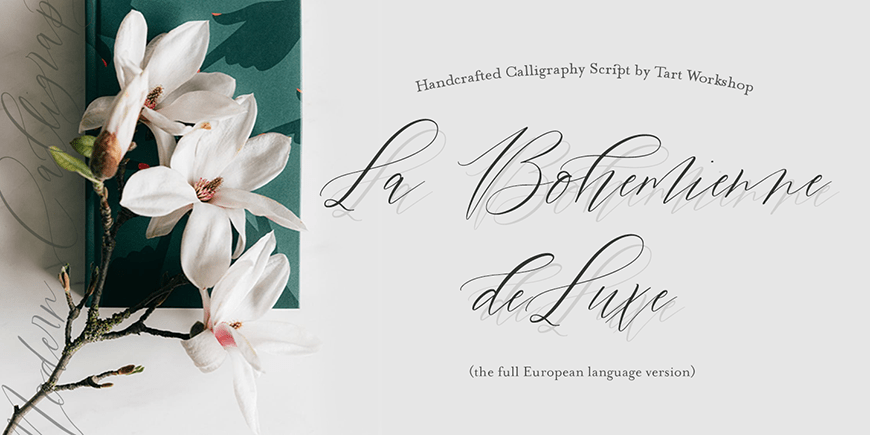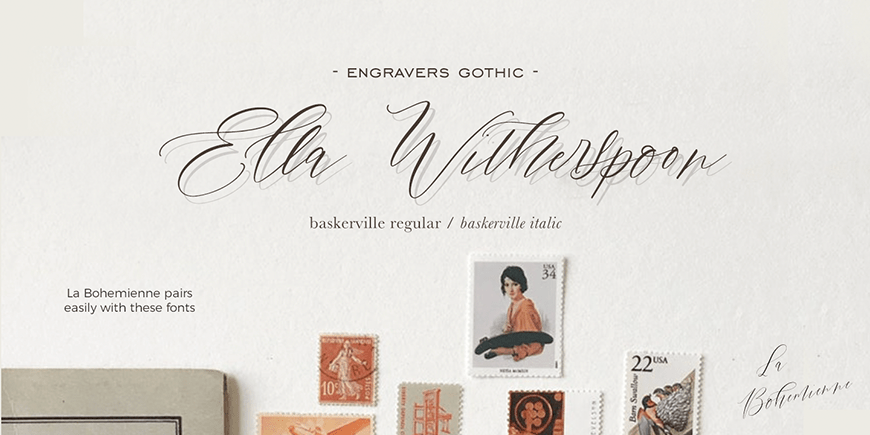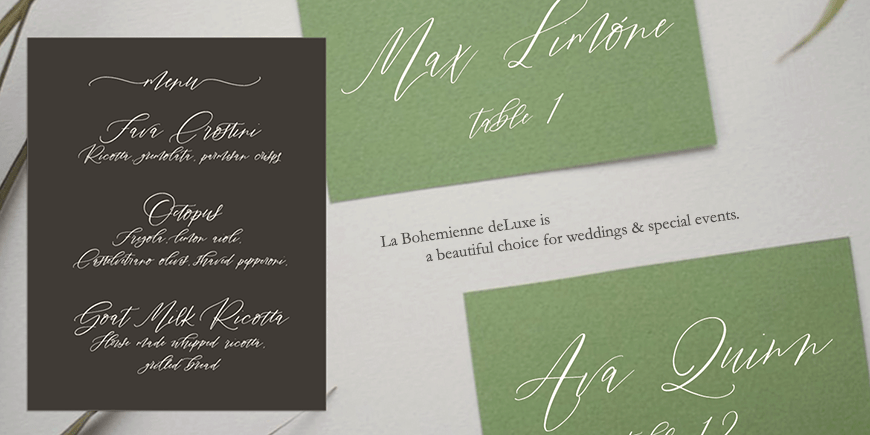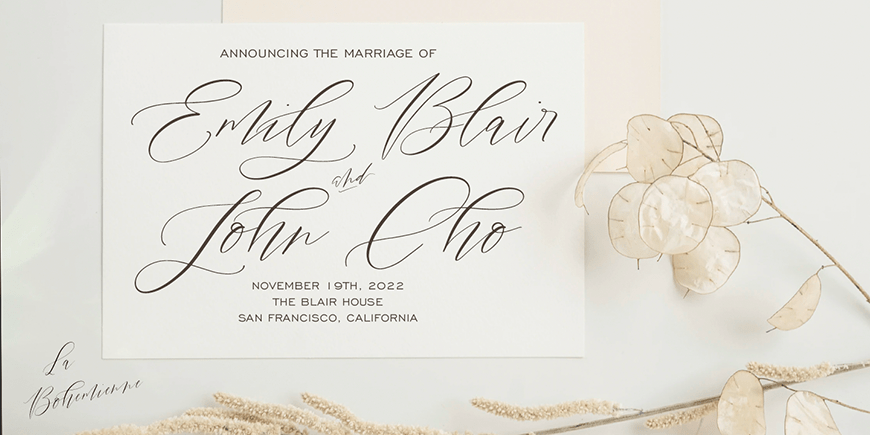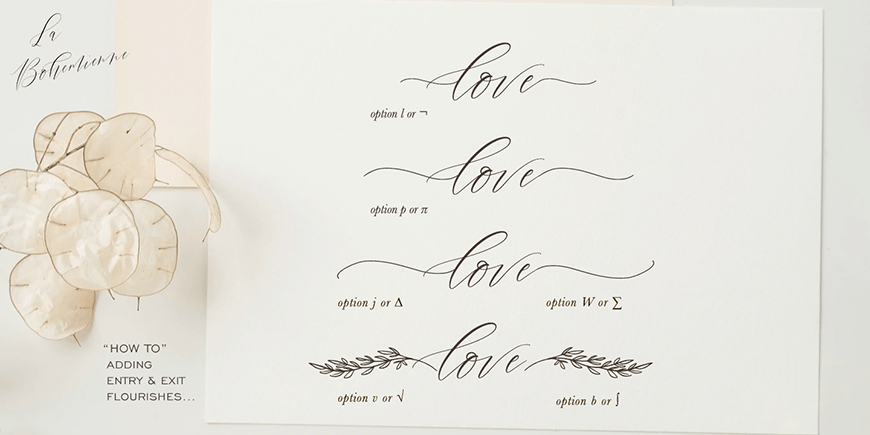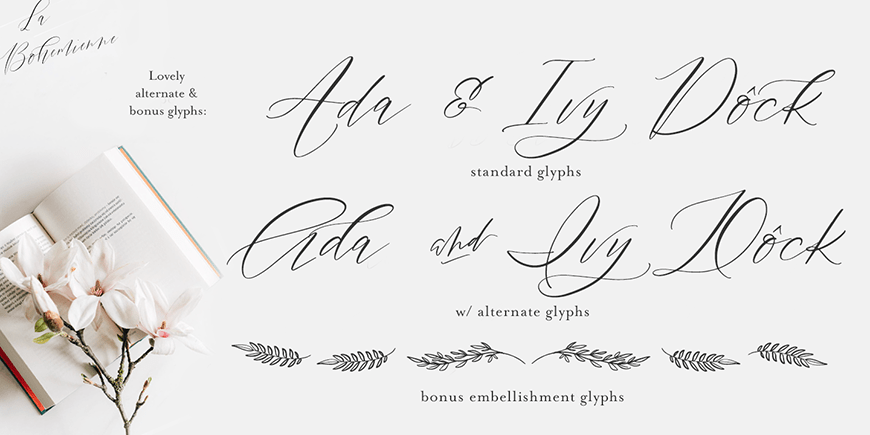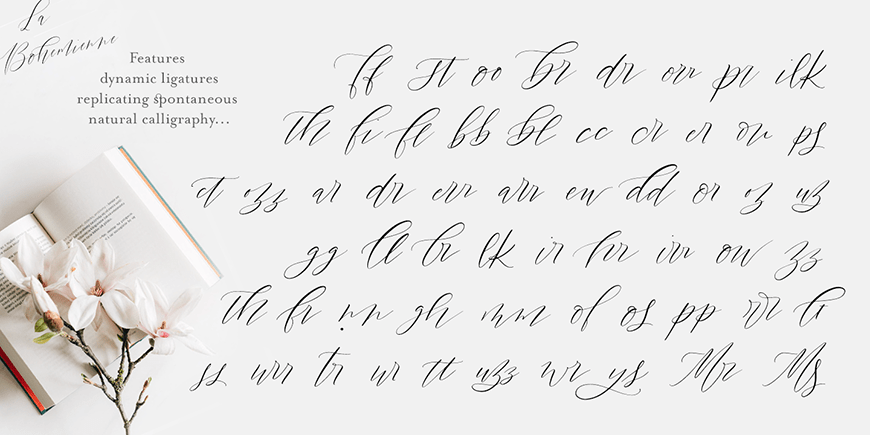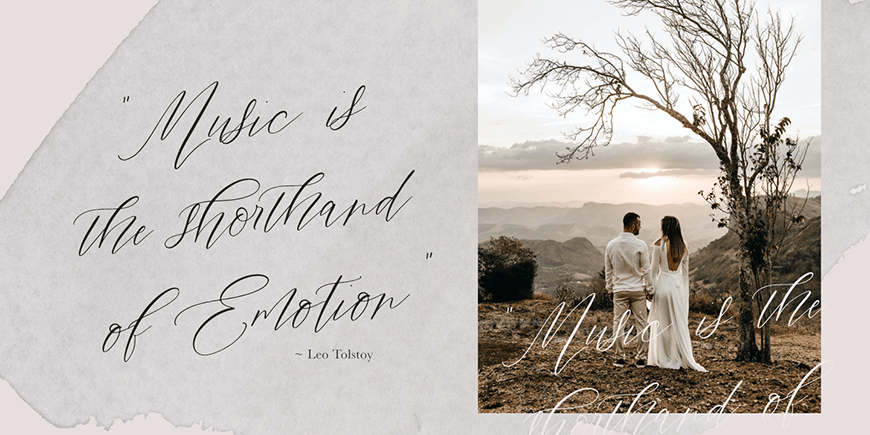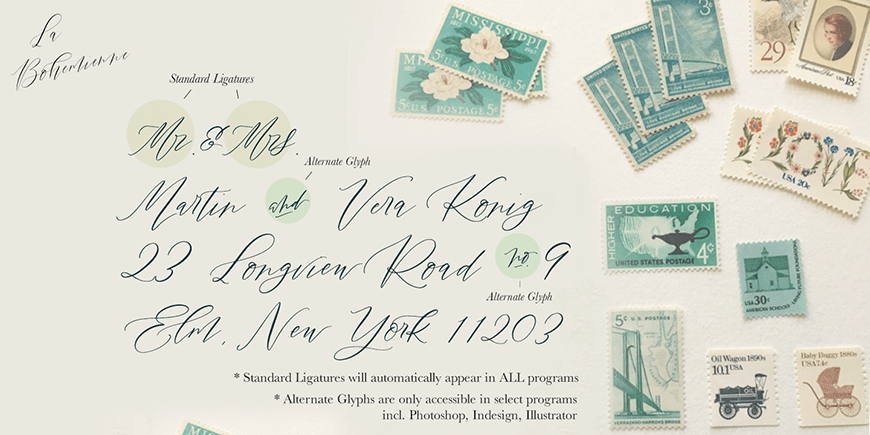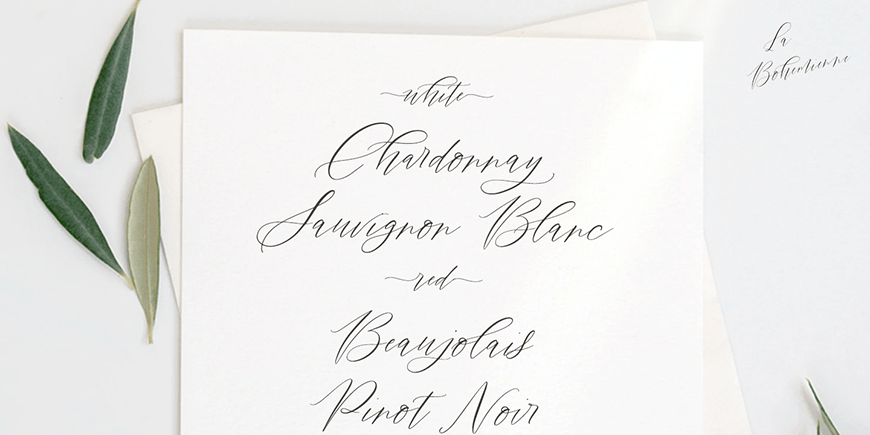
La Bohemienne deLuxe
Font Family by Tart Workshop
La Bohemienne deLuxe is a lovely modern calligraphy script which is designed to mimic handcrafted writing with all it’s quirks and beauty. Beautiful, sophisticated yet unpredictable and free spirited. Her OpenType magic automatically selects the ideal glyph through standard ligatures creating an organic feel. Additionally, you may select stylistic ligatures and charming alternate glyphs in Adobe software to customize your text. Rest assured, La Bohemienne deLuxe was thoughtfully tested by professional calligraphers and designers. She is simply a joy to use!
Included within are generous ligatures and alternate glyphs to customize your text, plus elegant swashes and botanical flourishes to accentuate, Perfect for logos, branding and of course wedding stationery.
Full European language support.